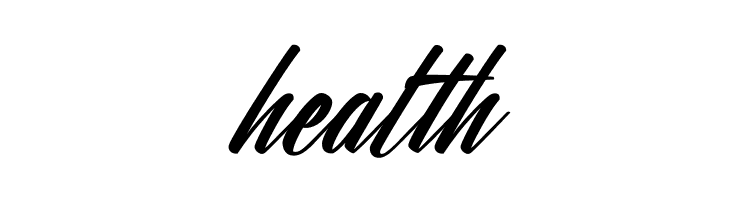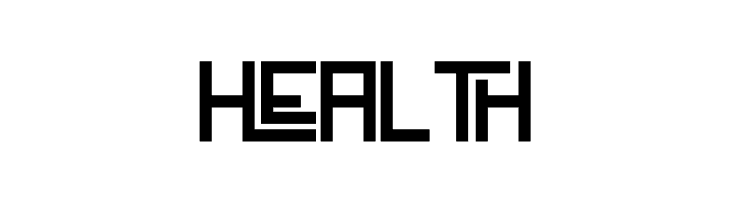
A dynamic and elegant script font with flowing, cursive letterforms.
A playful and elegant script font with a handwritten appearance.
An elegant, cursive script font with flowing, ornate characters.
A bold, geometric font with sharp angles and a modern, edgy look.